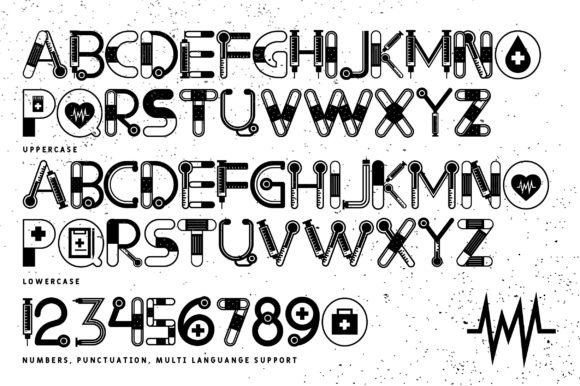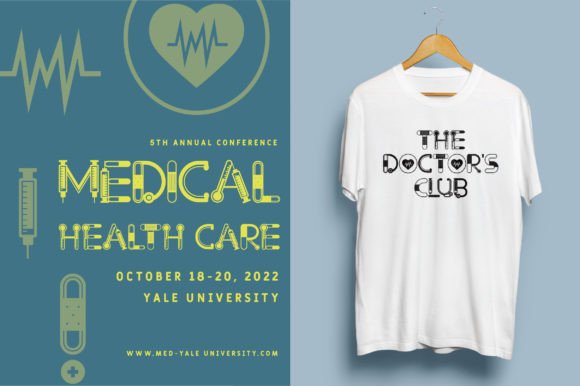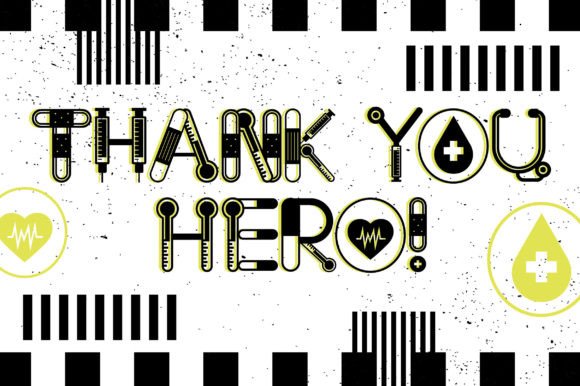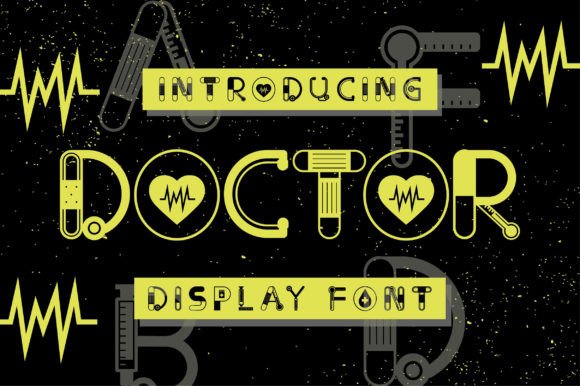
Introducing Doctor Font: The Perfect Medical Theme Decorative Font for Designers and Crafters
Are you a designer or crafter looking for a unique and creative font to add a touch of medical flair to your projects? Look no further than Doctor Font! This medical theme decorative font is perfect for creating eye-catching designs that are sure to stand out. In this article, we’ll take a closer look at Doctor Font, its features, and how you can use it to elevate your designs.
What is Doctor Font?
Doctor Font is a specially designed medical theme decorative font that is suitable for a wide range of medical-related designs. Whether you’re creating a title for a book, designing a poster, or making a t-shirt, Doctor Font is the perfect choice. Its unique and creative design makes it an excellent addition to any project that requires a touch of medical elegance.
Key Features of Doctor Font
So, what makes Doctor Font so special? Here are some of its key features:
• Medical Theme: Doctor Font is specifically designed with a medical theme in mind, making it perfect for creating designs that require a touch of medical flair.
• Decorative: This font is decorative, making it perfect for adding a creative touch to your designs.
• Versatile: Doctor Font can be used for a wide range of projects, from titles and posters to t-shirts and more.
How to Use Doctor Font
Using Doctor Font is easy! Here are some ideas to get you started:
• Book Titles: Use Doctor Font to create eye-catching titles for medical-themed books, such as textbooks, memoirs, or fiction novels.
• Posters: Create stunning posters for medical conferences, health awareness campaigns, or medical-themed events.
• T-Shirts: Design unique and creative t-shirts for medical professionals, health enthusiasts, or anyone who loves a touch of medical flair.
• Stationery: Use Doctor Font to create medical-themed stationery, such as letterheads, business cards, or greeting cards.
Benefits of Using Doctor Font
So, why choose Doctor Font for your designs? Here are some benefits:
• Unique and Creative: Doctor Font adds a touch of uniqueness and creativity to your designs, making them stand out from the crowd.
• Professional Look: This font gives your designs a professional and polished look, making them perfect for medical-themed projects.
• Easy to Read: Doctor Font is easy to read, making it perfect for designs that require a clear and concise message.
• Customizable: You can customize Doctor Font to fit your design needs, making it a versatile choice for a wide range of projects.
Tips and Tricks for Using Doctor Font
Here are some tips and tricks for using Doctor Font:
• Experiment with Colors: Try pairing Doctor Font with different colors to create a unique and eye-catching design.
• Play with Fonts: Experiment with different font combinations to create a unique and creative design.
• Keep it Simple: Don’t overcomplicate your design. Keep it simple and clean to make the most of Doctor Font.
Font Name Doctor Font
Author Caoca Studio